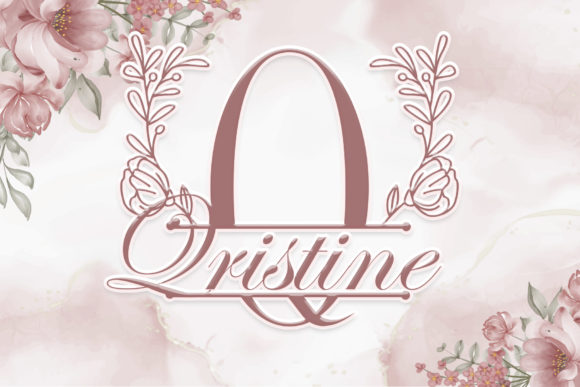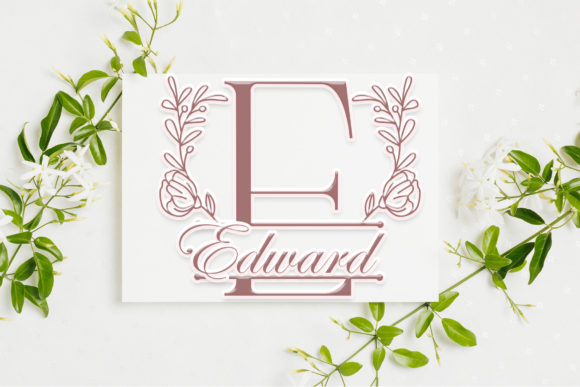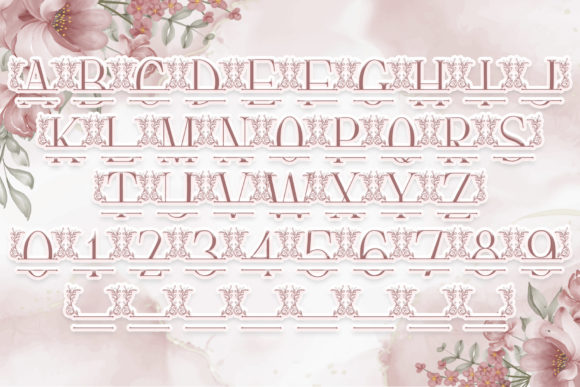
Introduction to Floral Blossom Line Font
Floral Blossom Line is a sophisticated and unique decorative font.
Add this romantic and lovely looking font to each of your love letters, wedding invitations or favorite design ideas, and you will be astounded by the outcome .
Key Features of Floral Blossom Line Font
Why Choose Floral Blossom Line Font?
Floral Blossom Line Font offers exceptional quality and versatility, making it a valuable addition to your design toolkit. Whether you’re creating for personal projects or commercial use, Floral Blossom Line Font delivers professional results.